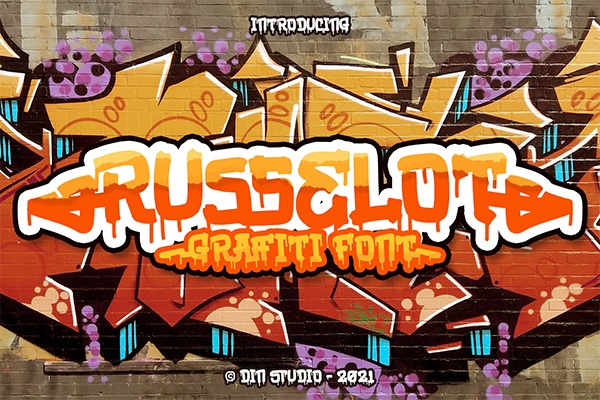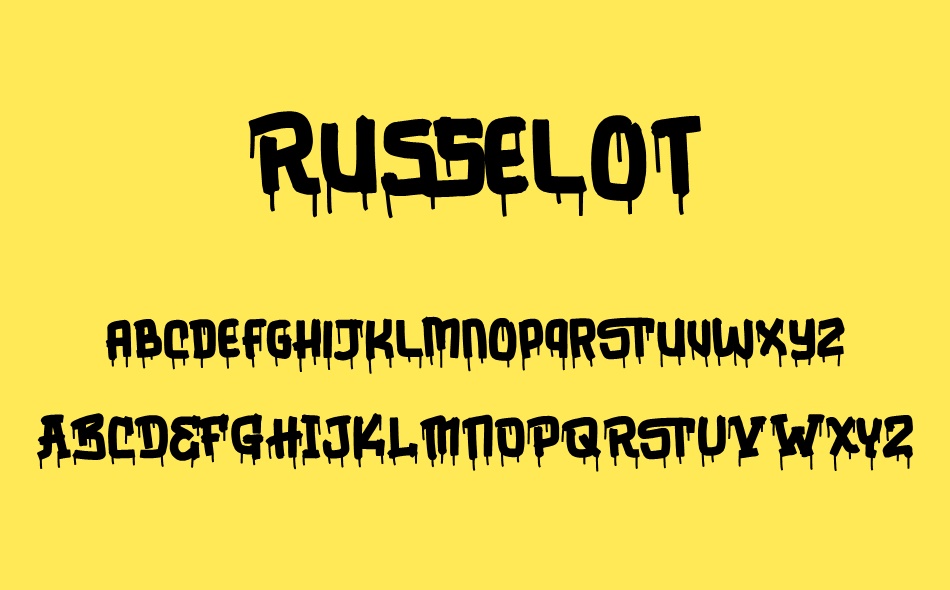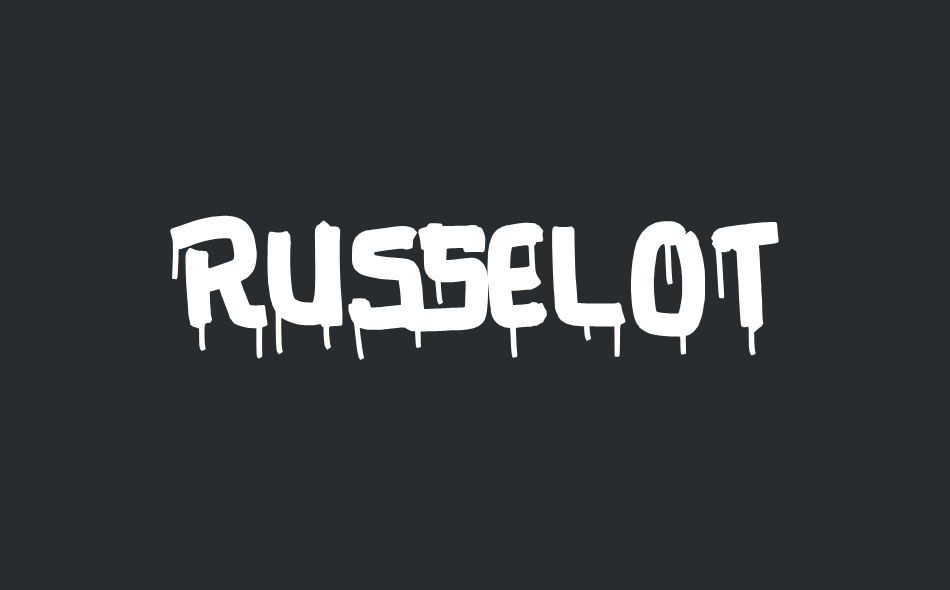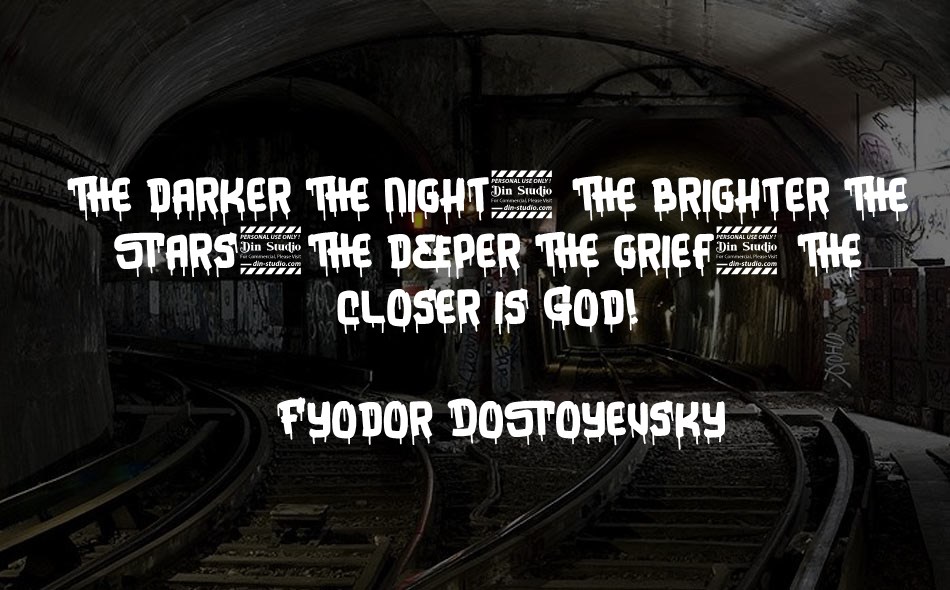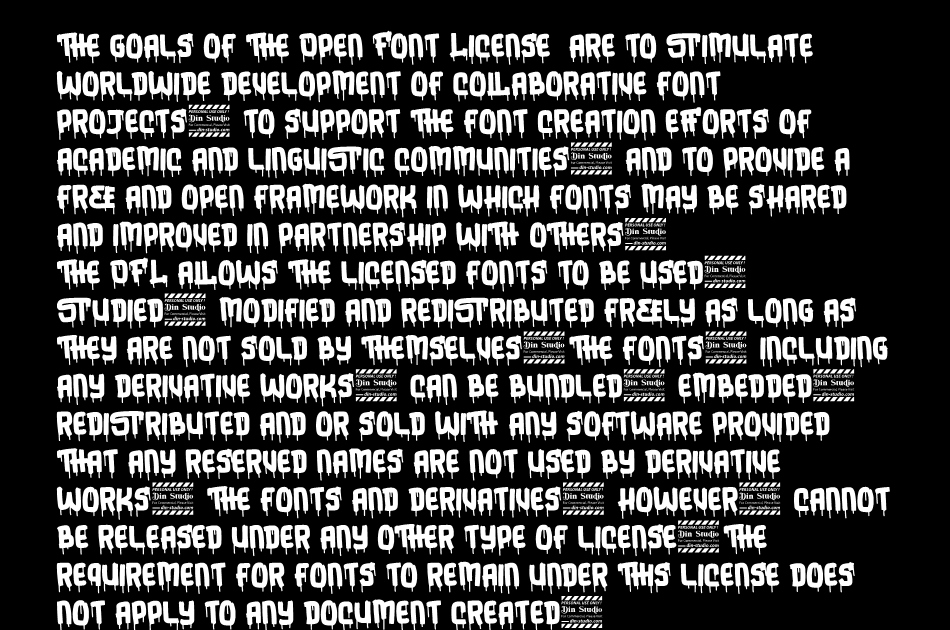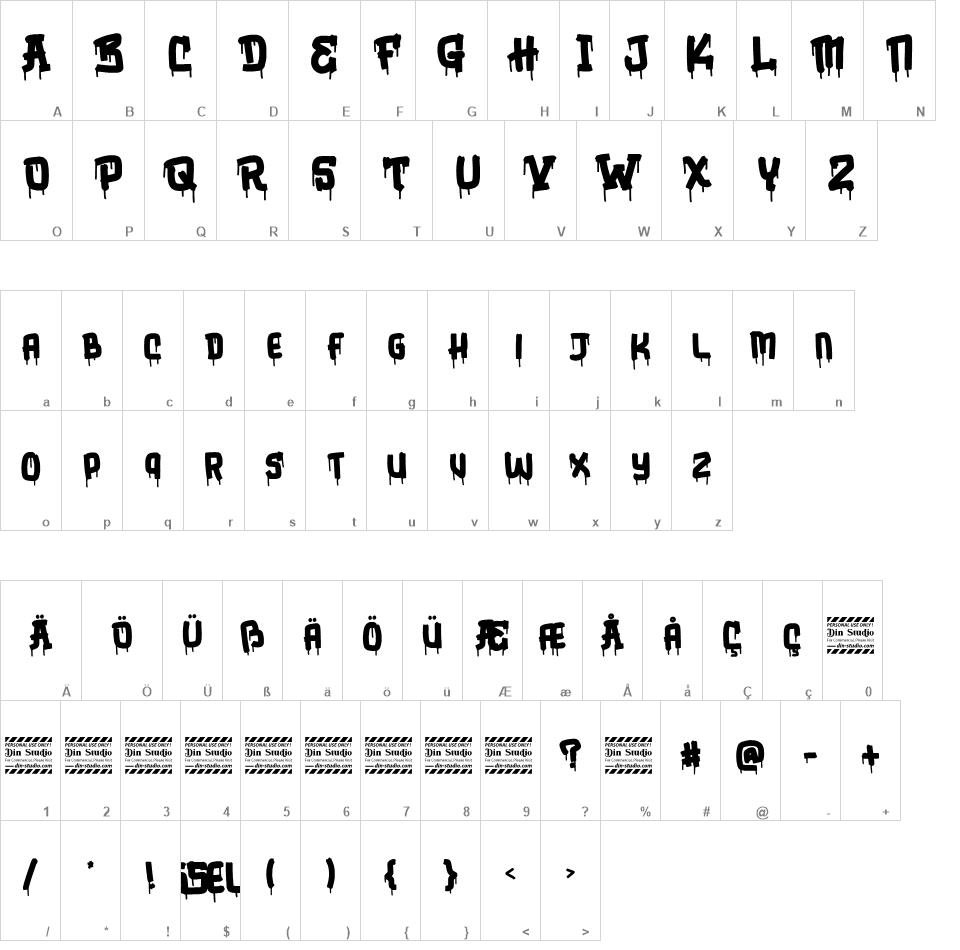
Russelot font
Russelot is a colorful graffiti typeface. Designed primarily as a captivating uppercase graffiti font design
combined with bubble style. This typeface that is easy on the eyes font that excels at captivating
headlines, or large branding text, the font oozes that cute aesthetic that just makes you go “aww!”
Features:
• Ligatures
• Swashes
• Multilingual Supports
• PUA Encoded
• Numerals and Punctuation